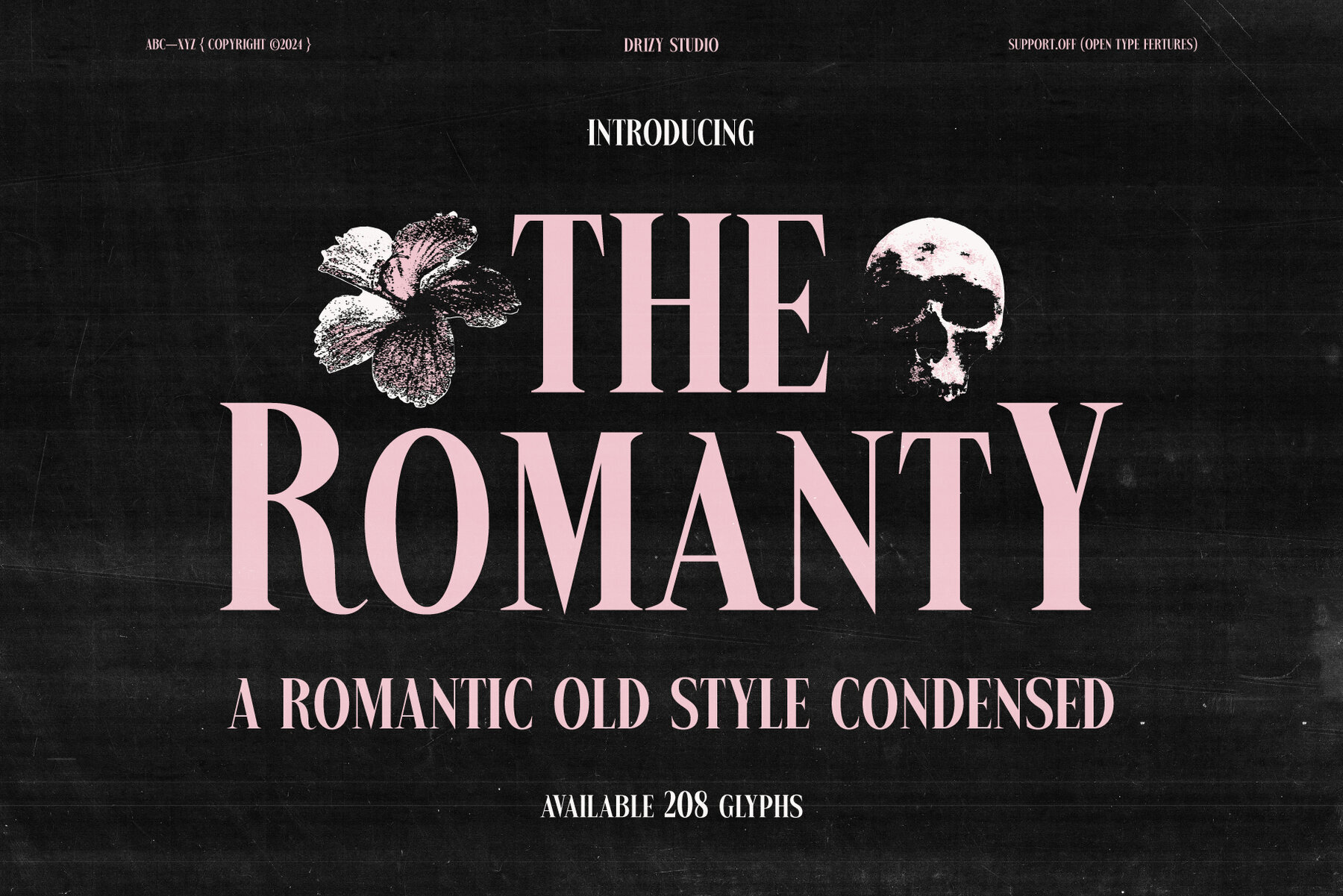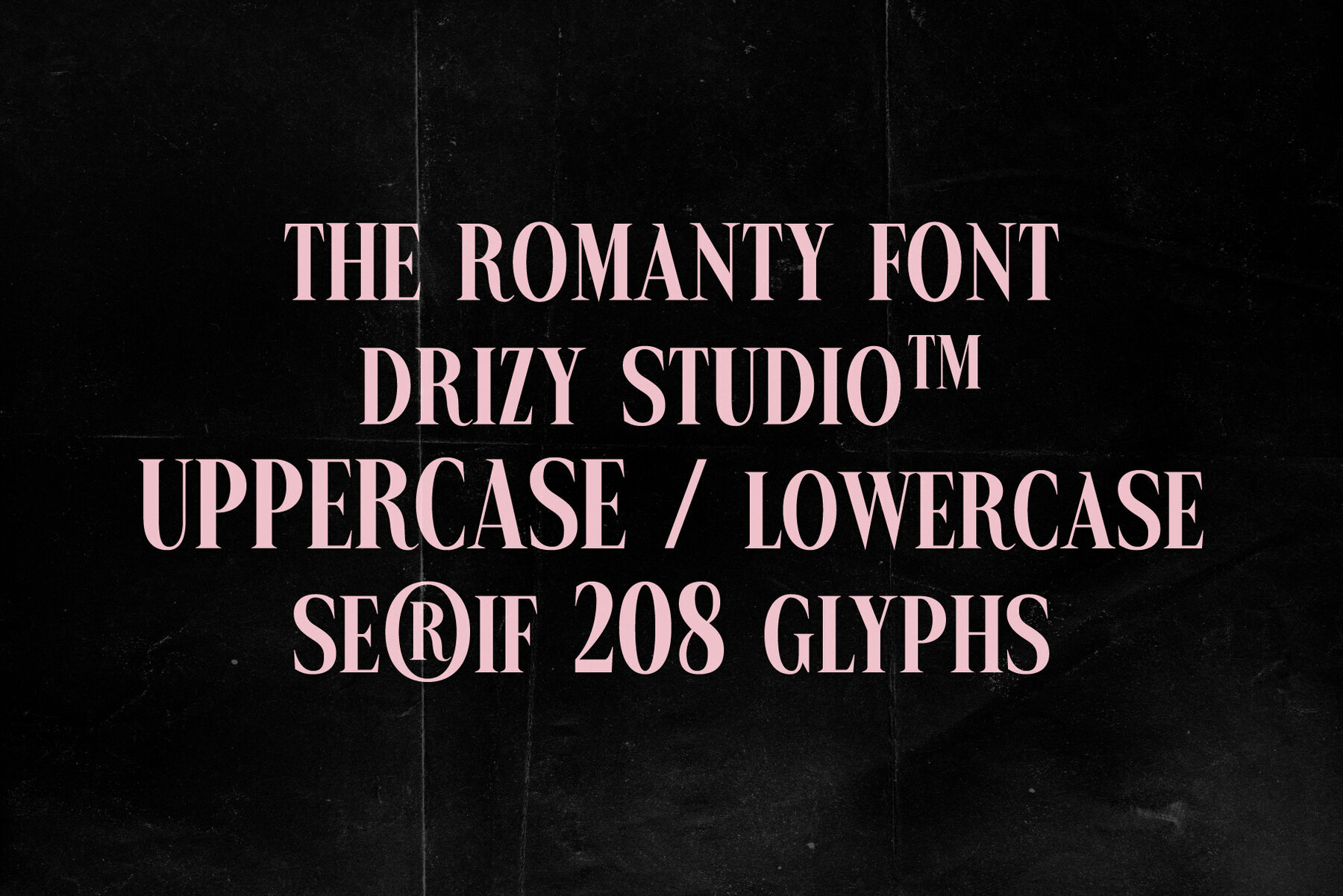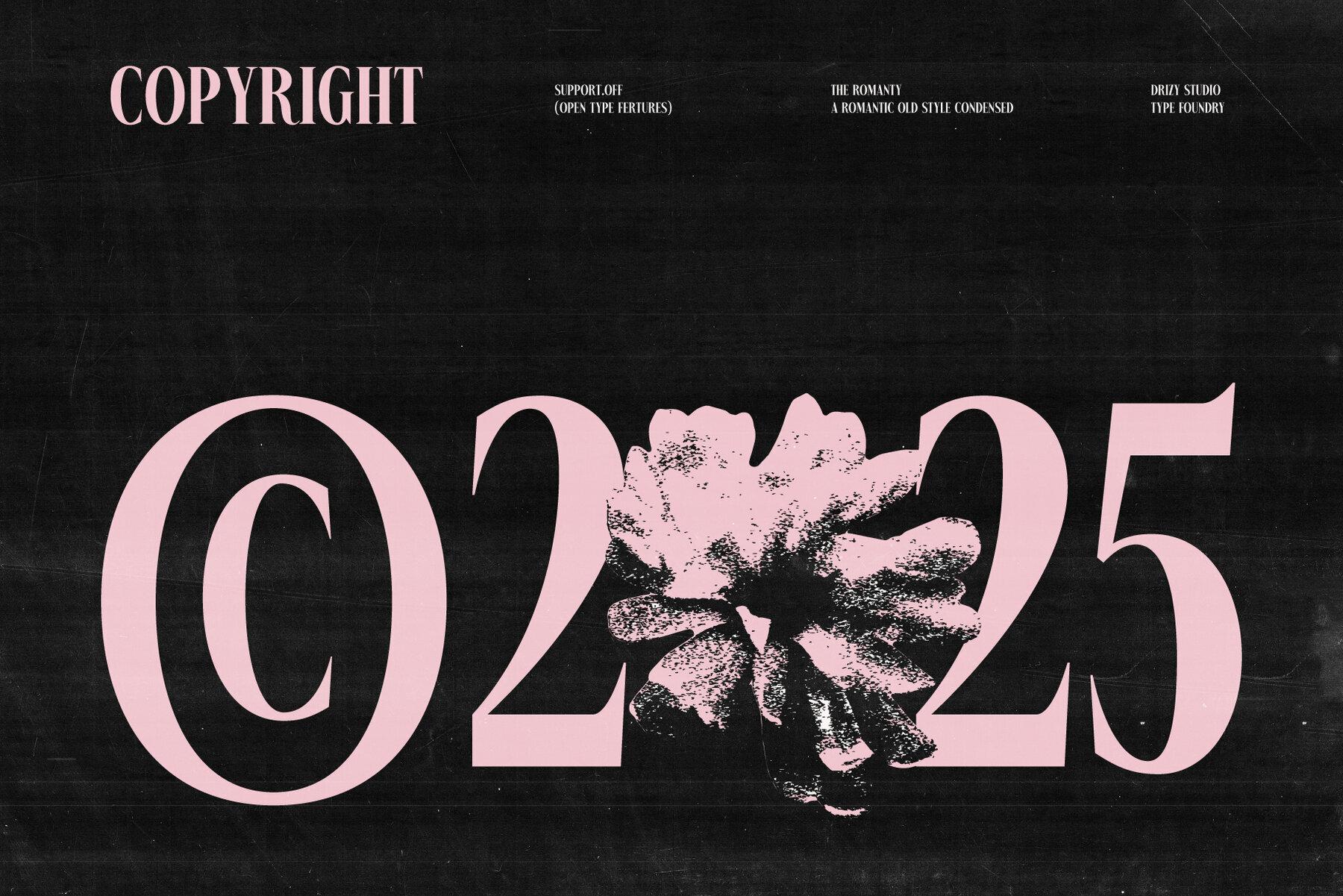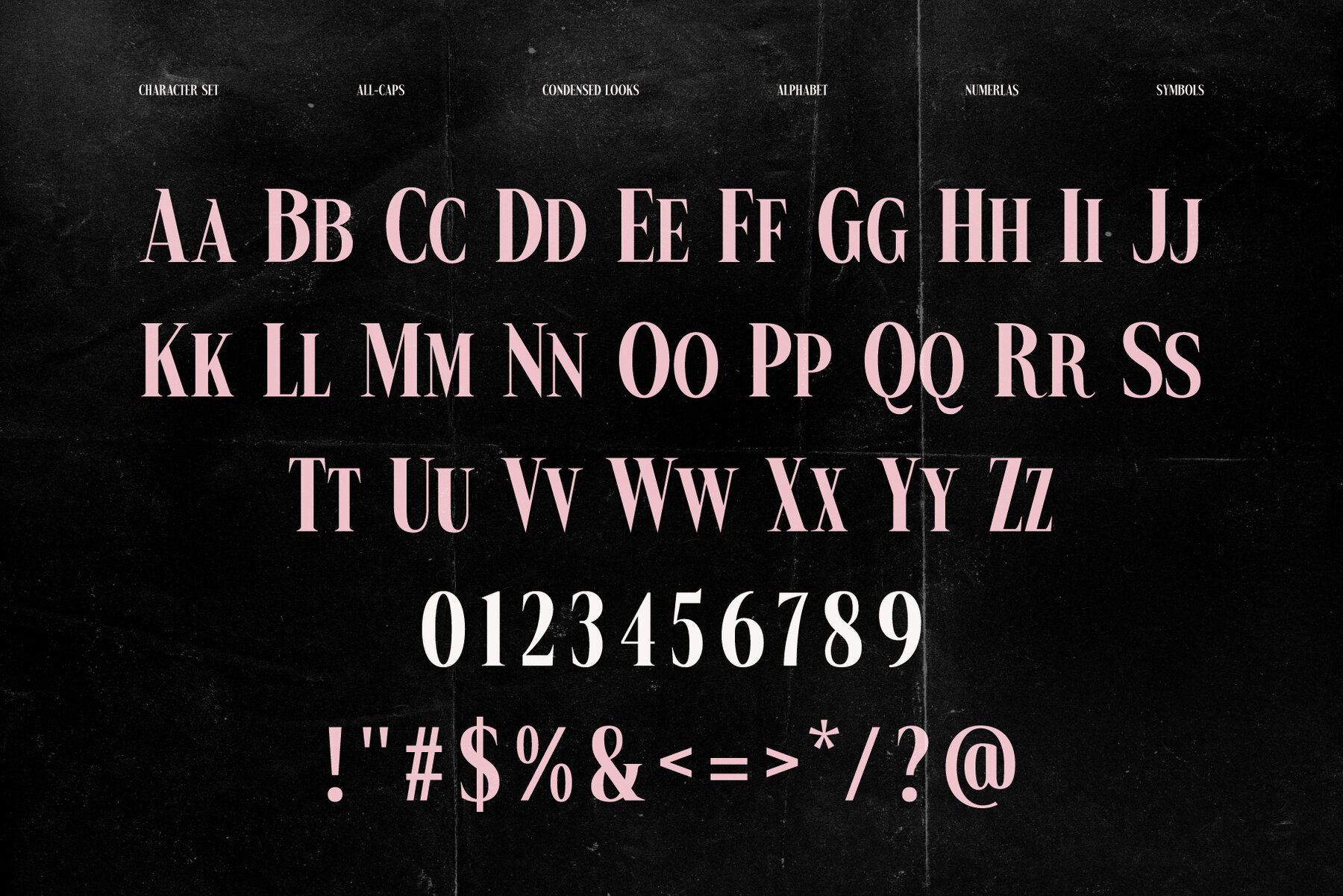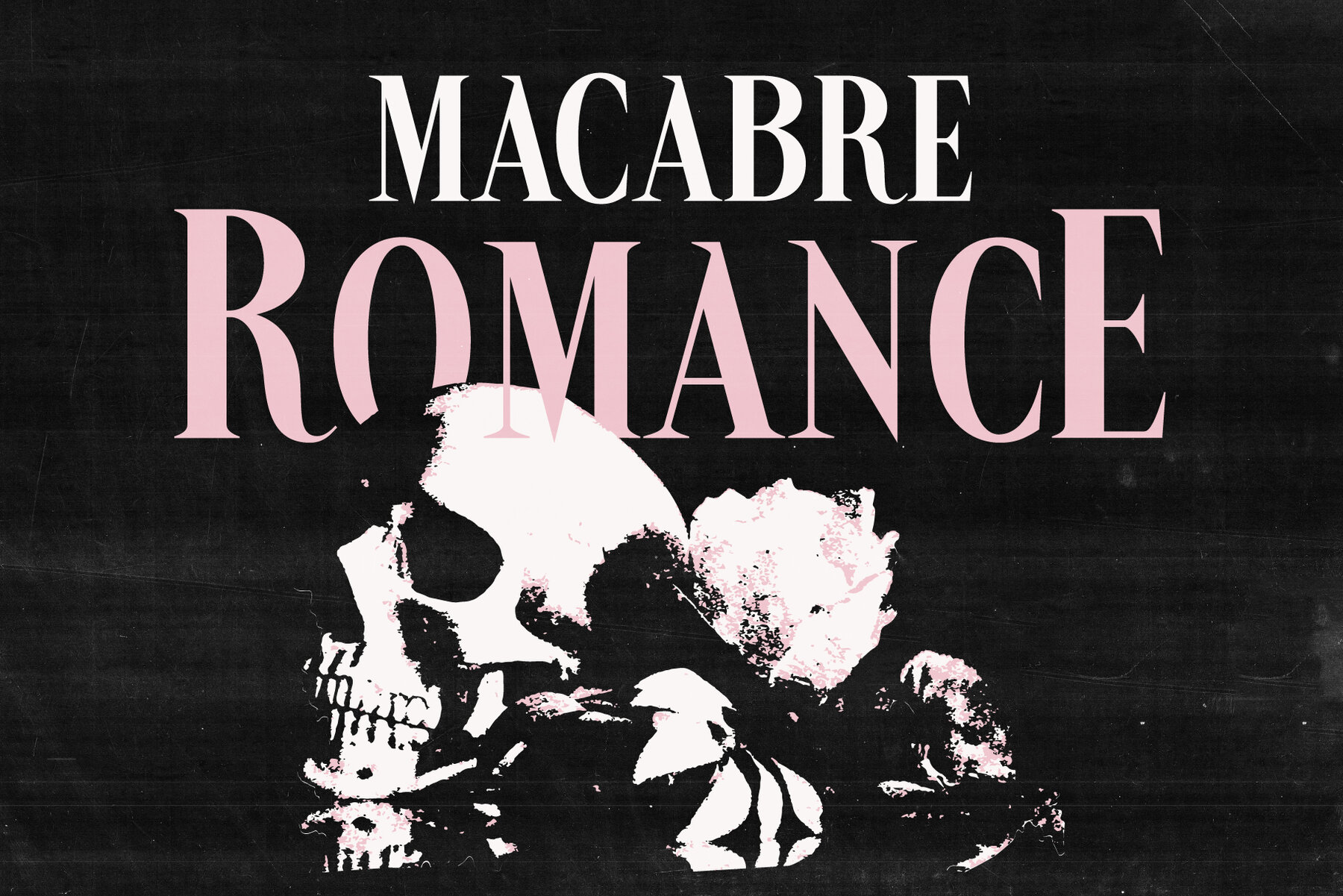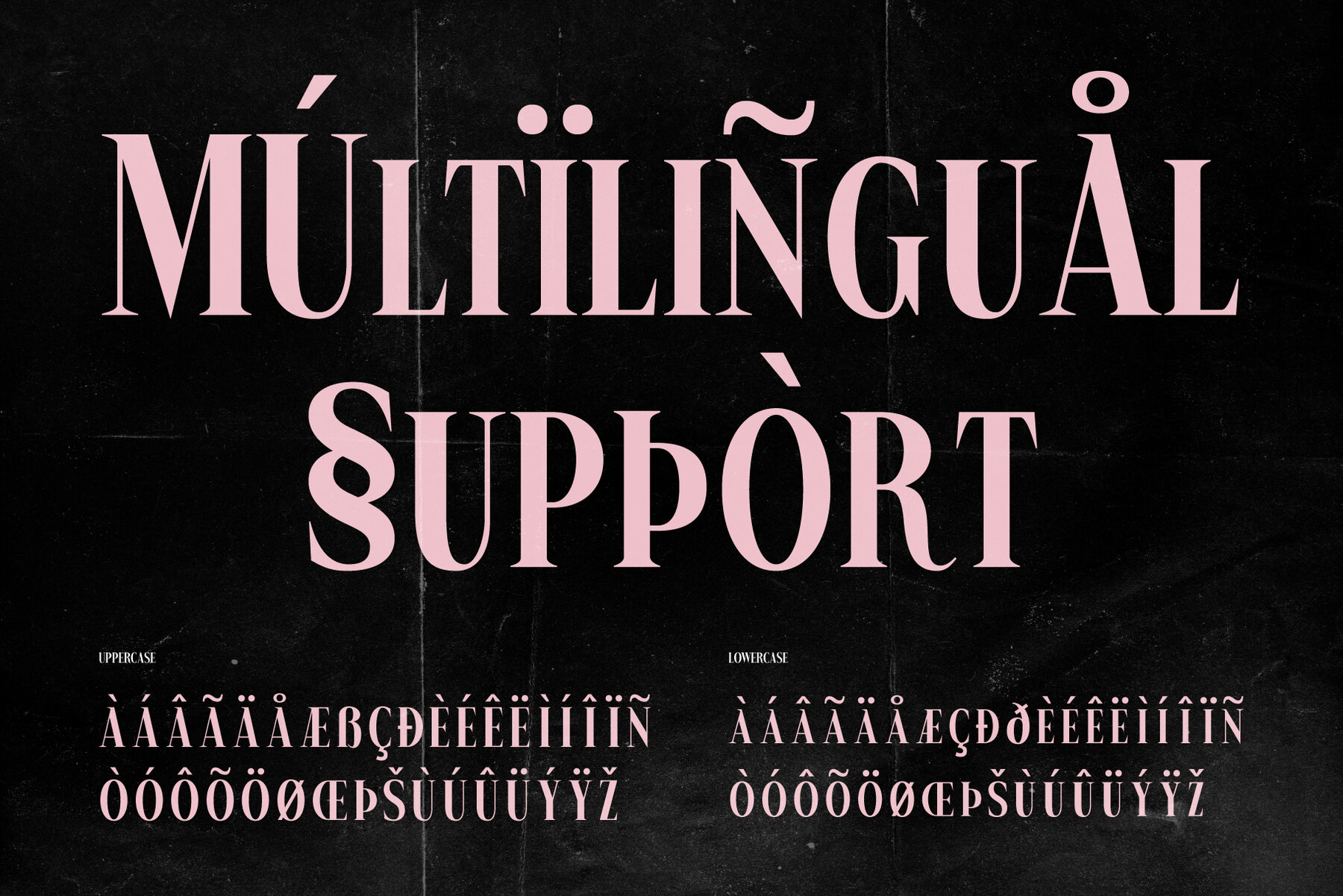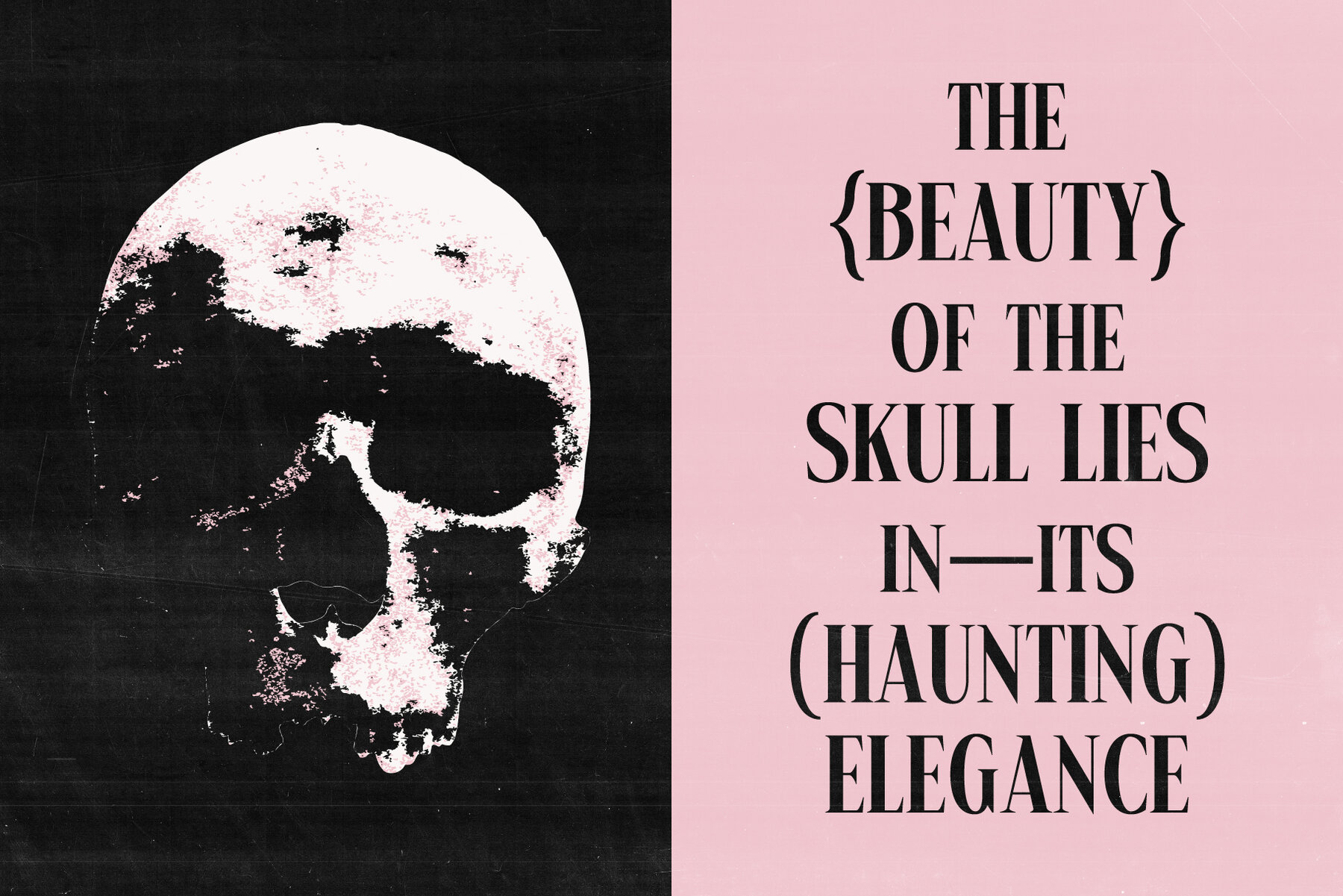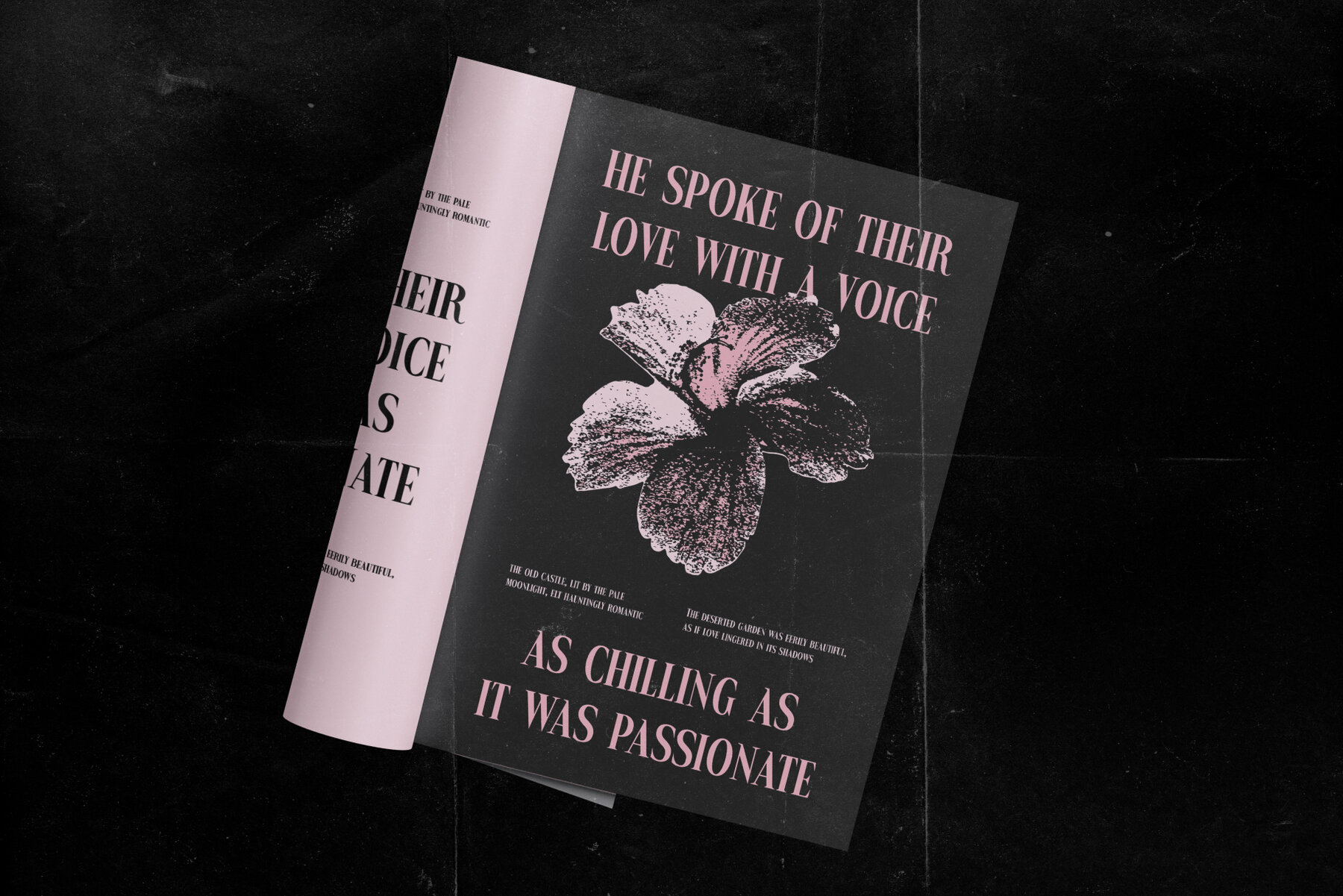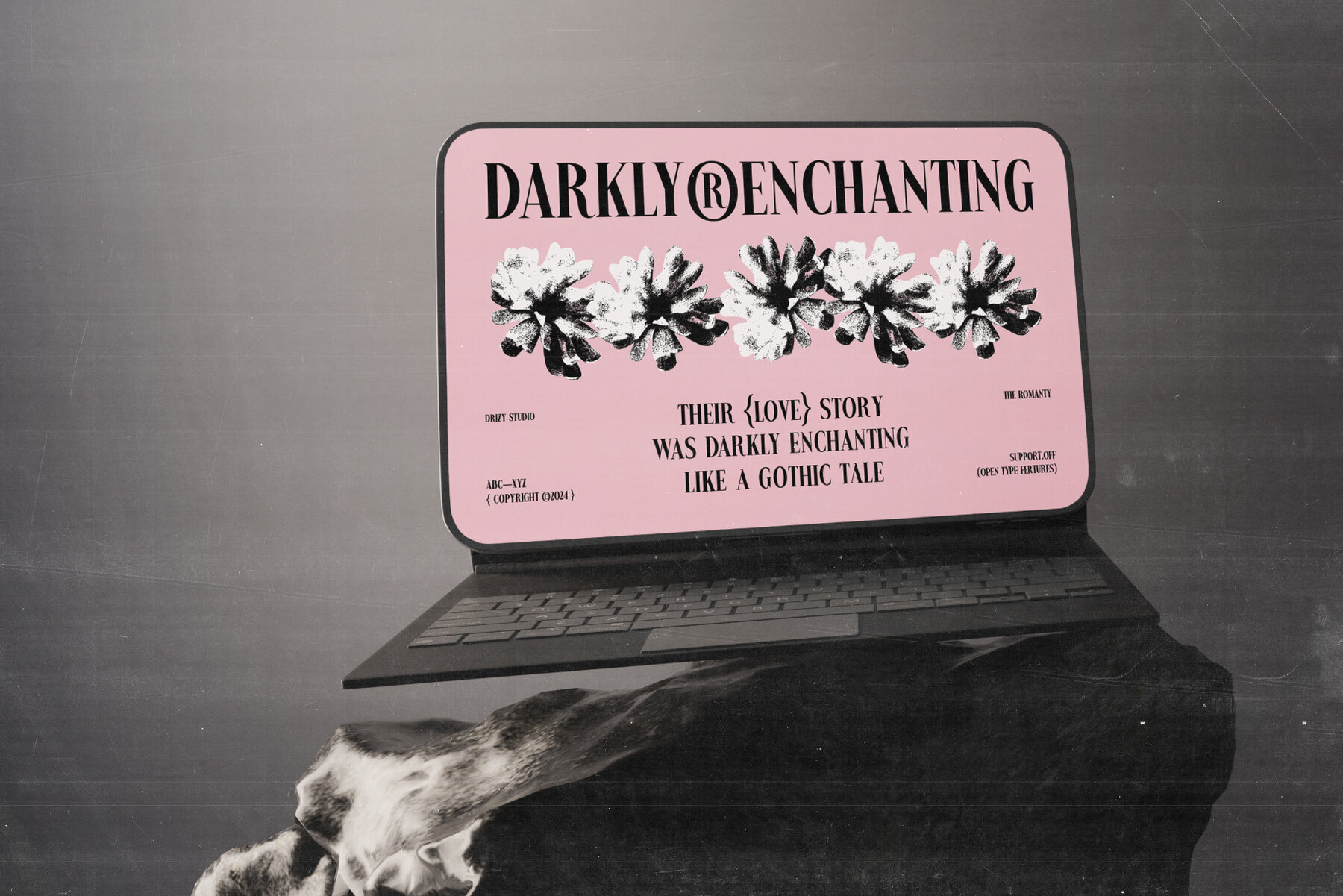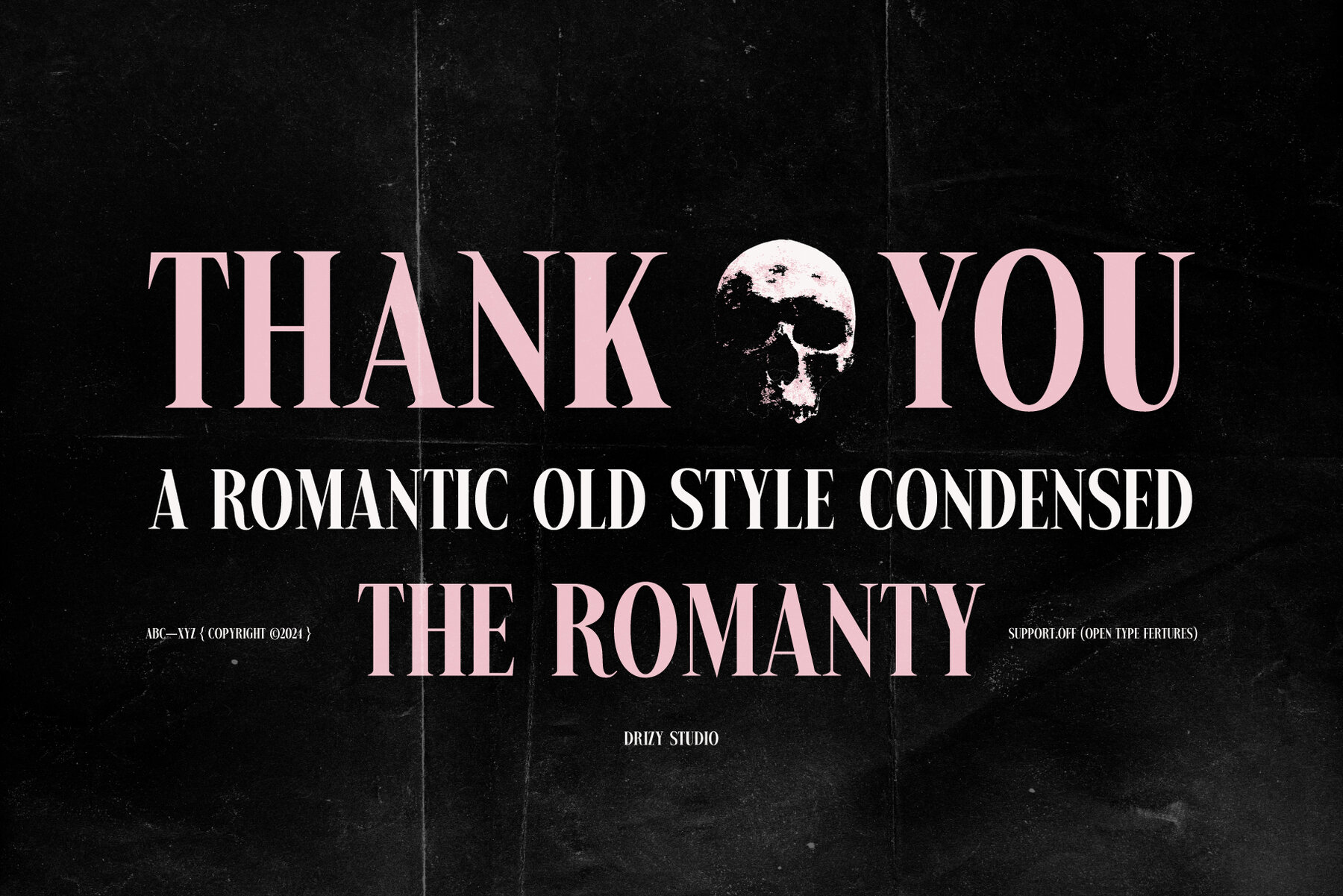
The Romanty Font
The Romanty Regular
The Romanty romantic old style condensed font encapsulates enchanting nostalgia, designed to evoke deep emotions and timeless elegance. Tailored for the Emo Romance aesthetic, this font blends vintage charm with an element of dramatic flair. Its slender, condensed characters exude sophistication, making it perfect for love letters, poetic expressions, gothic-inspired projects, or dreamy wedding themes.
The Romanty delivers a heartfelt touch to your designs, balancing passion with melancholy. This font features an all-caps character set, punctuation, numbers, and offers multilingual support. Whether you're crafting a memorable invitation or a gothic novel cover, The Romanty will add a unique, sophisticated, and romantic dimension to your work.